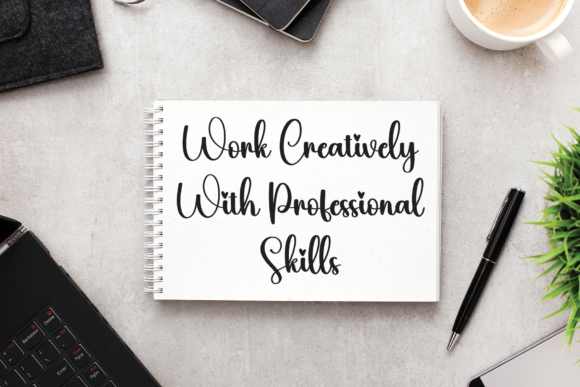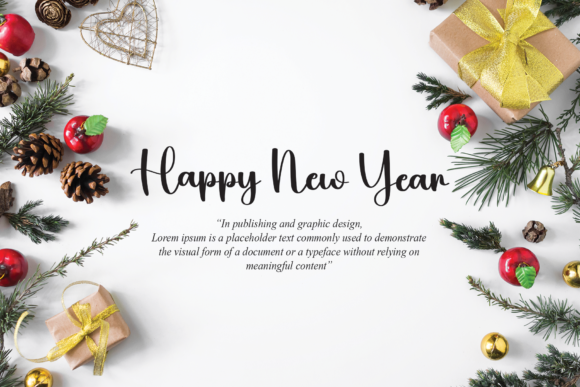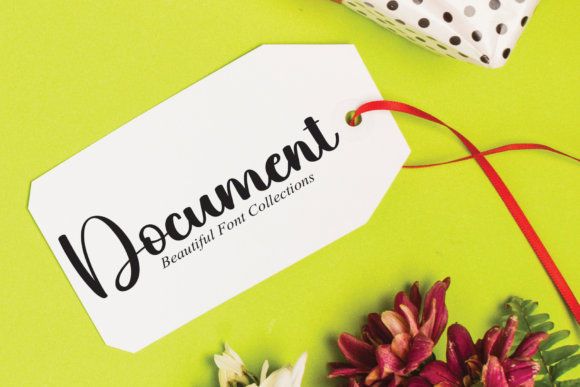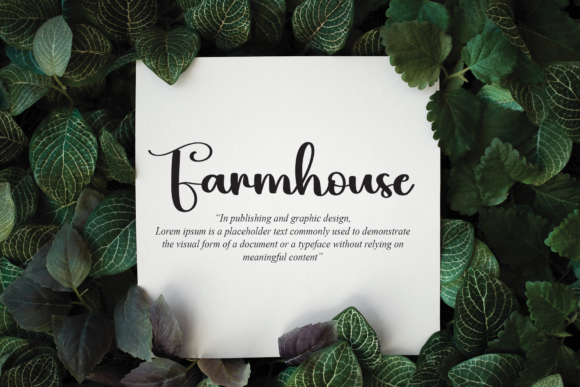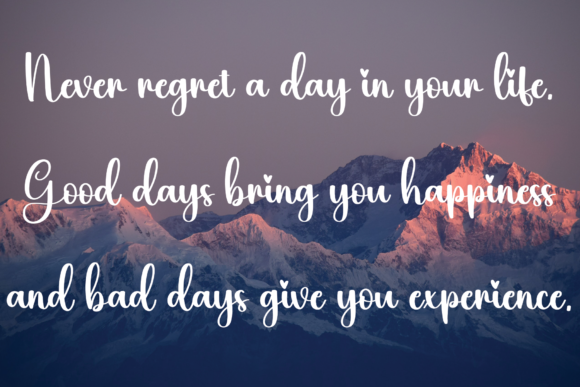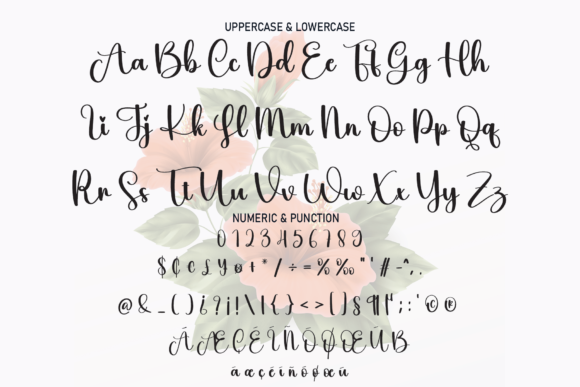
Introduction to Hibis Font
Taking romantic to a whole new level Hibis is a font with hearts for dots—you can find them on characters like “i” and “j”.
With this font, your messages will become really super cute It is perfect for posters, greeting cards, t-shirts, branding materials, quotes, and any other amazing projects you are working on.